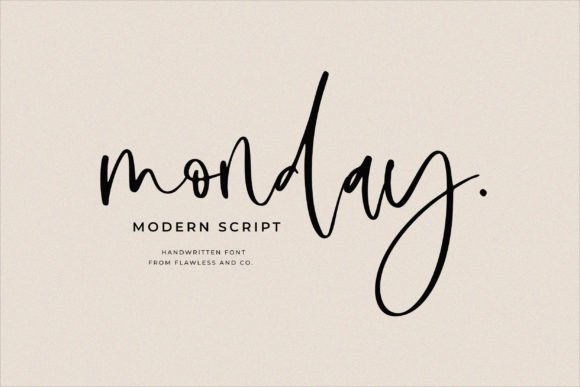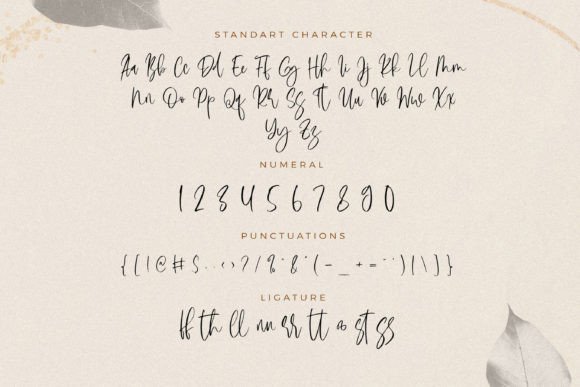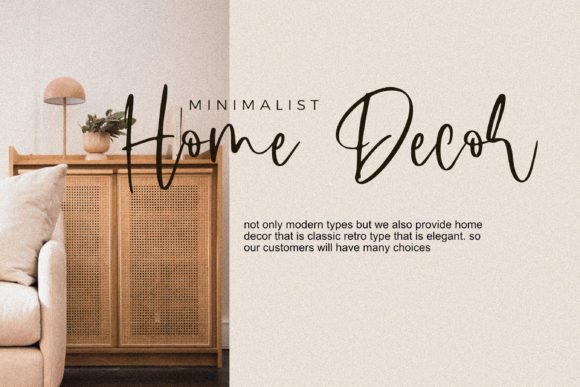
Monday Font
Monday is a girly and sweet script font type that gives a flawless touch to any design you create! Don’t forget to try out the connected letters or swashes in some characters to get a classy and elegant style.